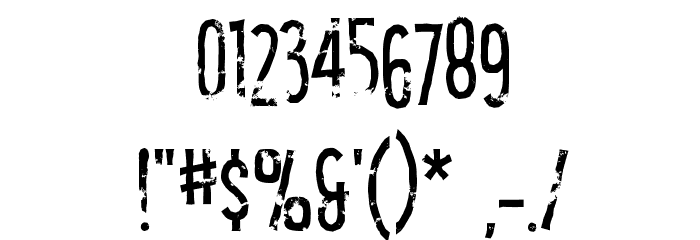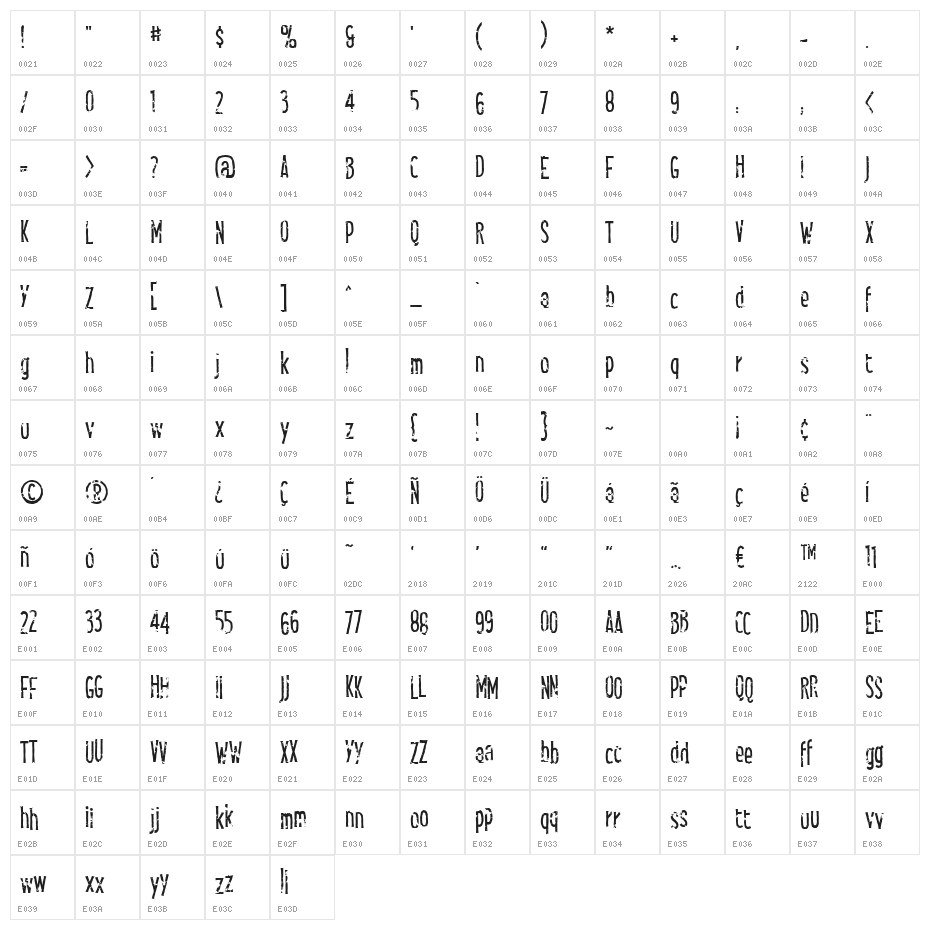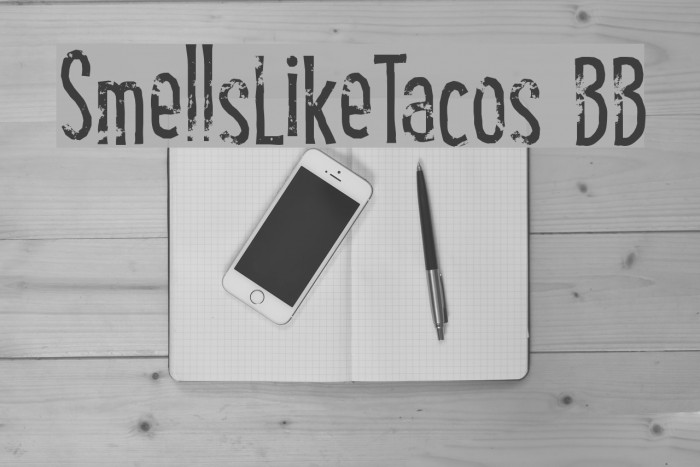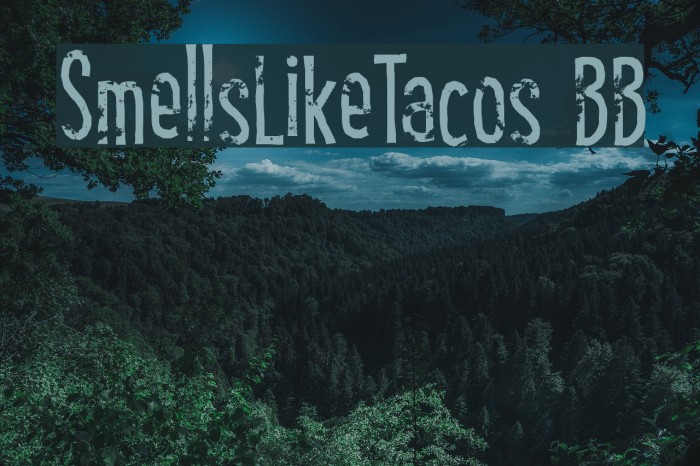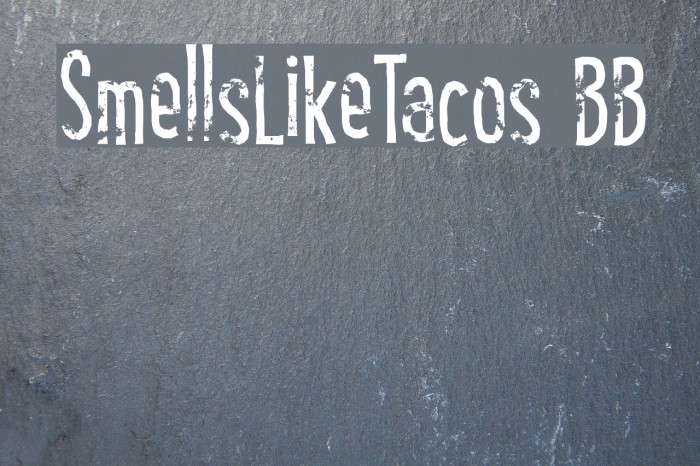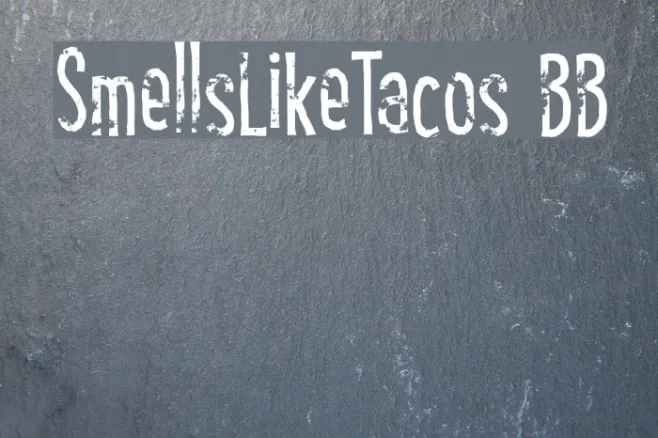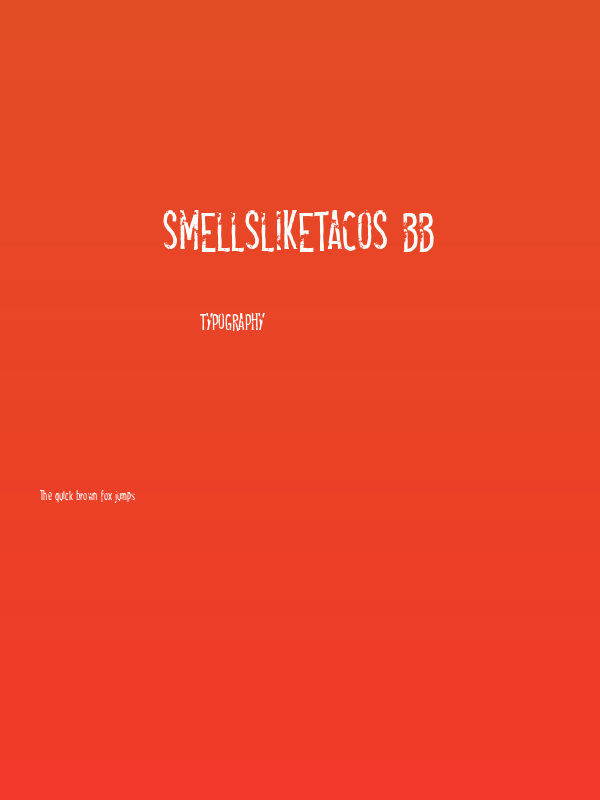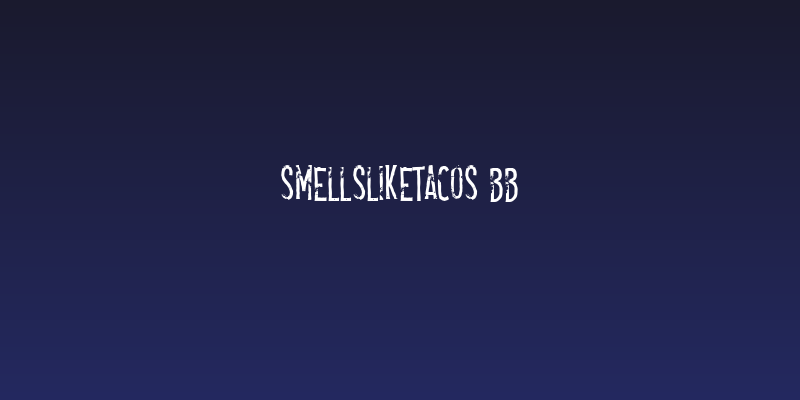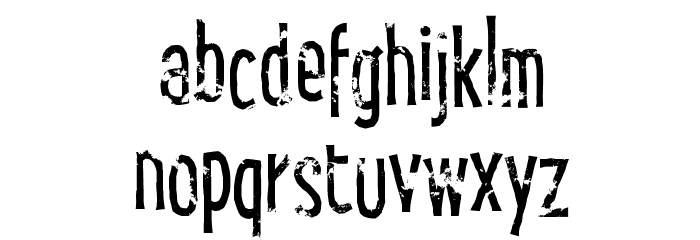
SmellsLikeTacos BB Font
SmellsLikeTacos BB Description
This font features a distressed, grunge style with a textured appearance that gives it a worn and rugged look. The characters are bold and slightly uneven, adding to the chaotic and edgy aesthetic. Each letter and number appears to have been weathered, with irregular edges and a rough texture that suggests a vintage or industrial feel. The uppercase and lowercase letters maintain a consistent style, while the numerals and special characters complement the overall design. This font is ideal for projects that require a bold statement with a touch of rebellion or urban flair.
| Overall Style | Grunge, Urban, Vintage |
| Proposed Projects | Ideal for album covers, posters, streetwear branding, or any project needing an edgy, urban vibe. |